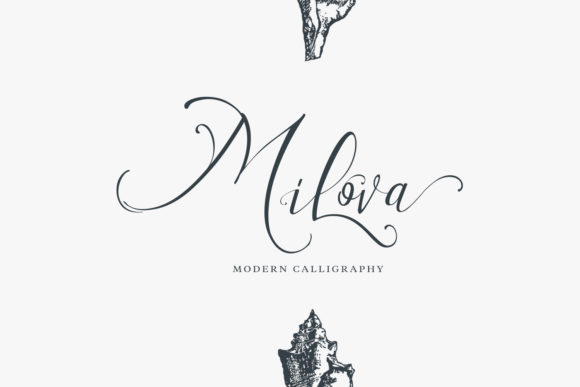
Introducing Milova Font: Your Key to Unlock Creativity and Elegance
In a world craving authenticity and individuality, Milova Font emerges as an artistic masterpiece that speaks to your soul. Crafted meticulously by the visionary designers at creativemedialab, Milova embodies the essence of handwritten beauty, bringing an aura of sophistication to every design project it graces.
With fluid lines that mimic the organic flow of a calligrapher's pen, Milova is a script font that dances across the page, evoking a sense of grace and effortless charm. Its delicate strokes and subtle variations in thickness create a visually captivating texture, adding depth and dimension to your designs.
Whether you're a seasoned designer or a creative enthusiast, Milova beckons you to explore new horizons of artistry. Its versatility extends beyond the boundaries of a single aesthetic, seamlessly adapting to a myriad of design styles. From whimsical invitations and enchanting branding to heartfelt personal notes and captivating social media posts, Milova is your trusted companion, transforming ordinary words into works of art.
Unleash your creativity and craft stunning designs that leave a lasting impression. Elevate your projects with Milova's enchanting script, and watch as your ideas blossom into masterpieces. Embrace the elegance, embrace the beauty, and let Milova guide you on a journey of artistic exploration like never before.